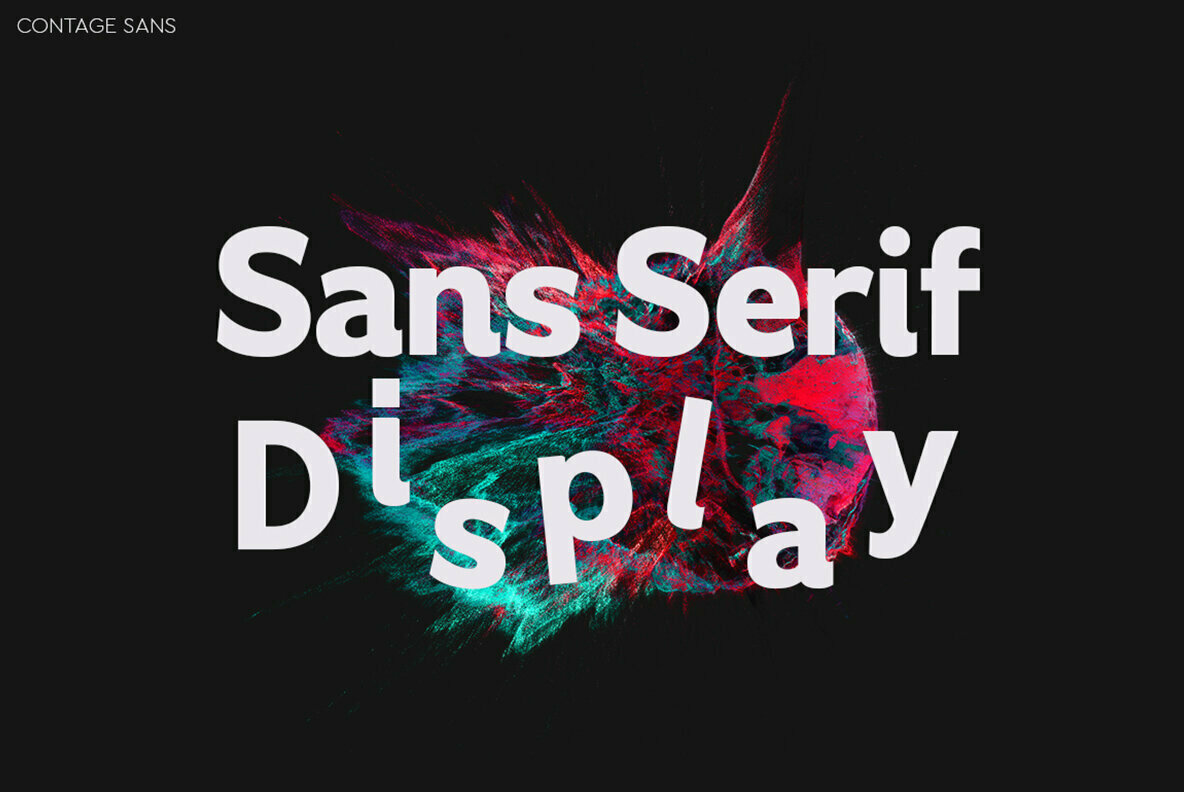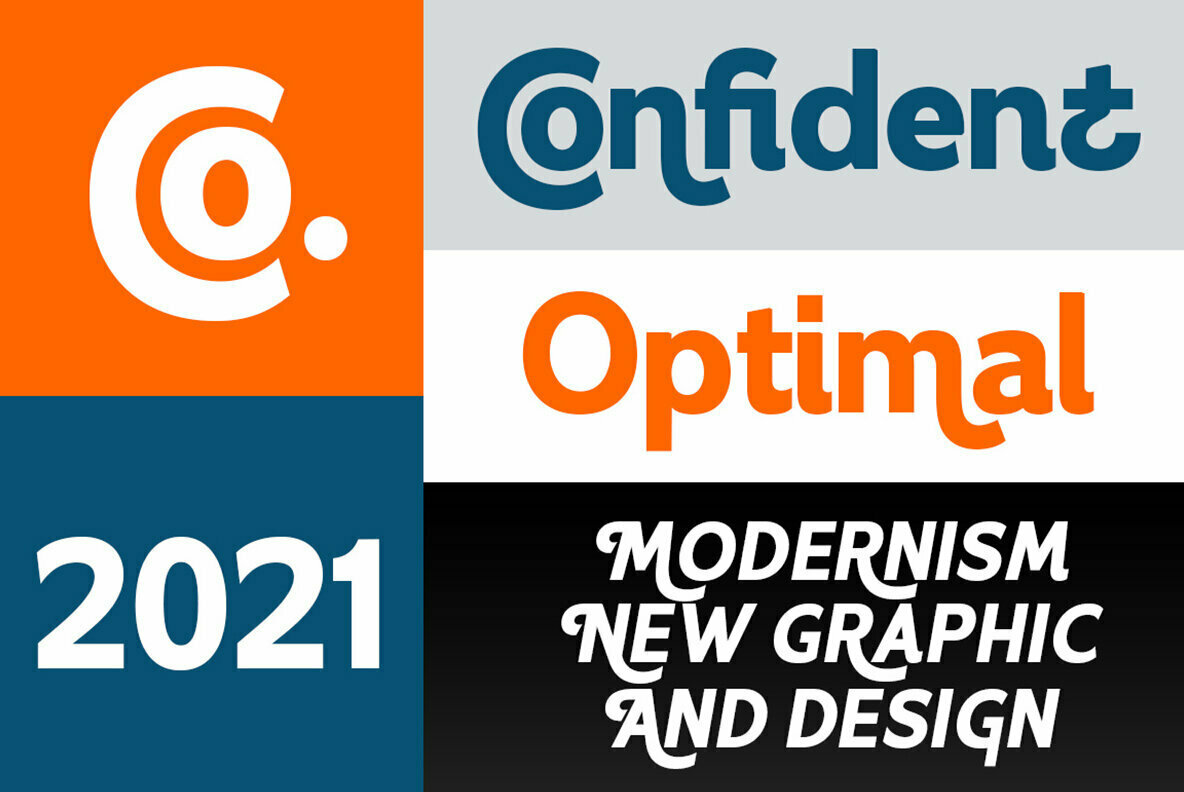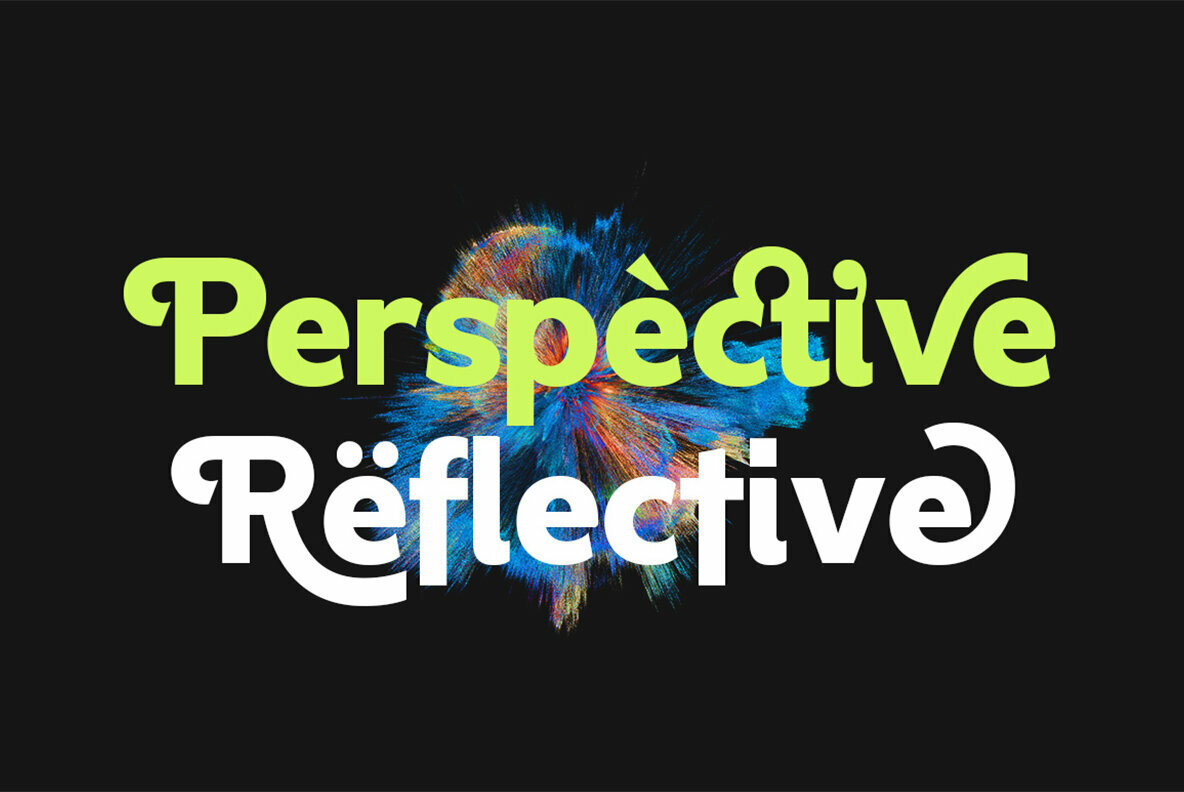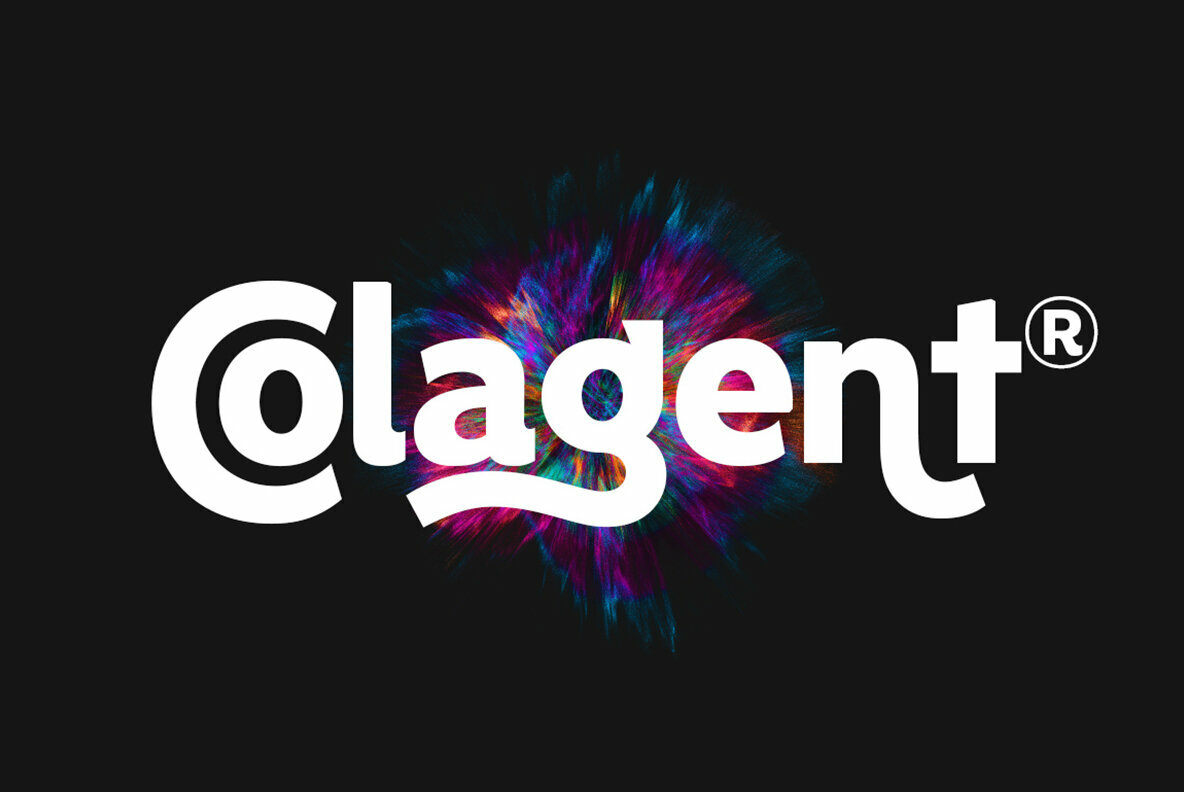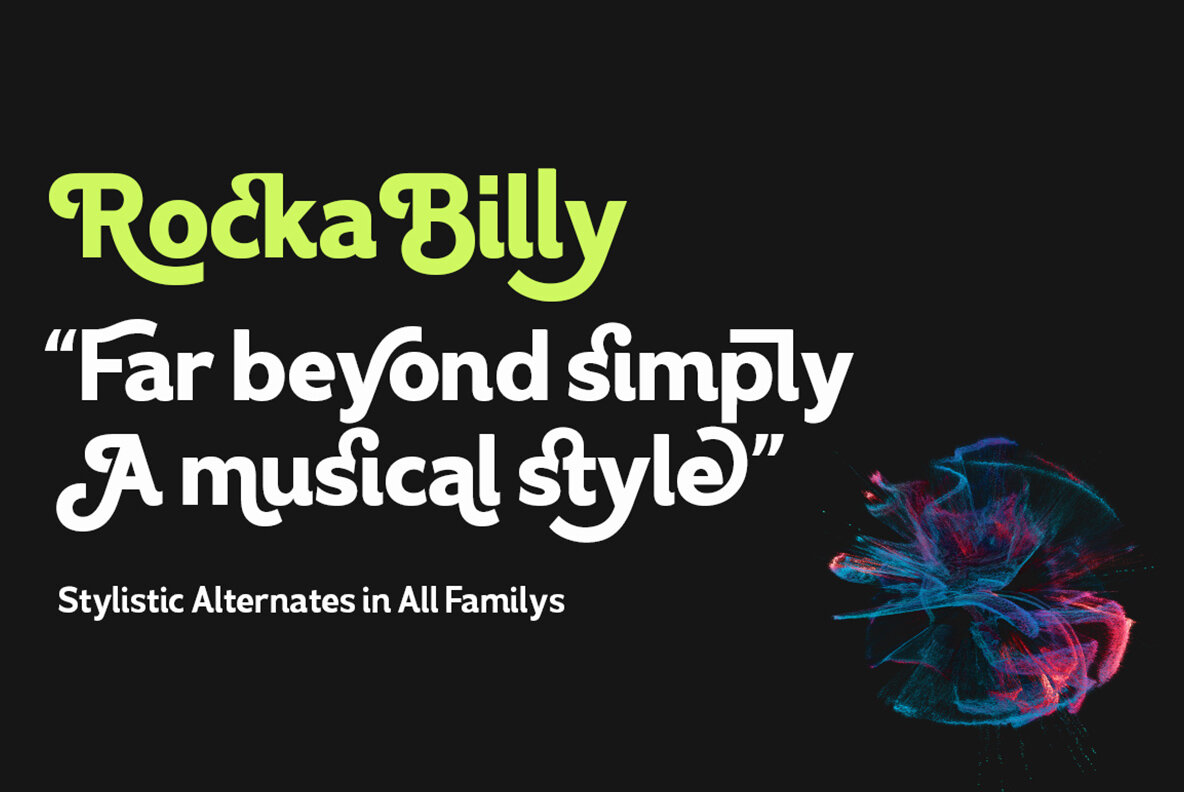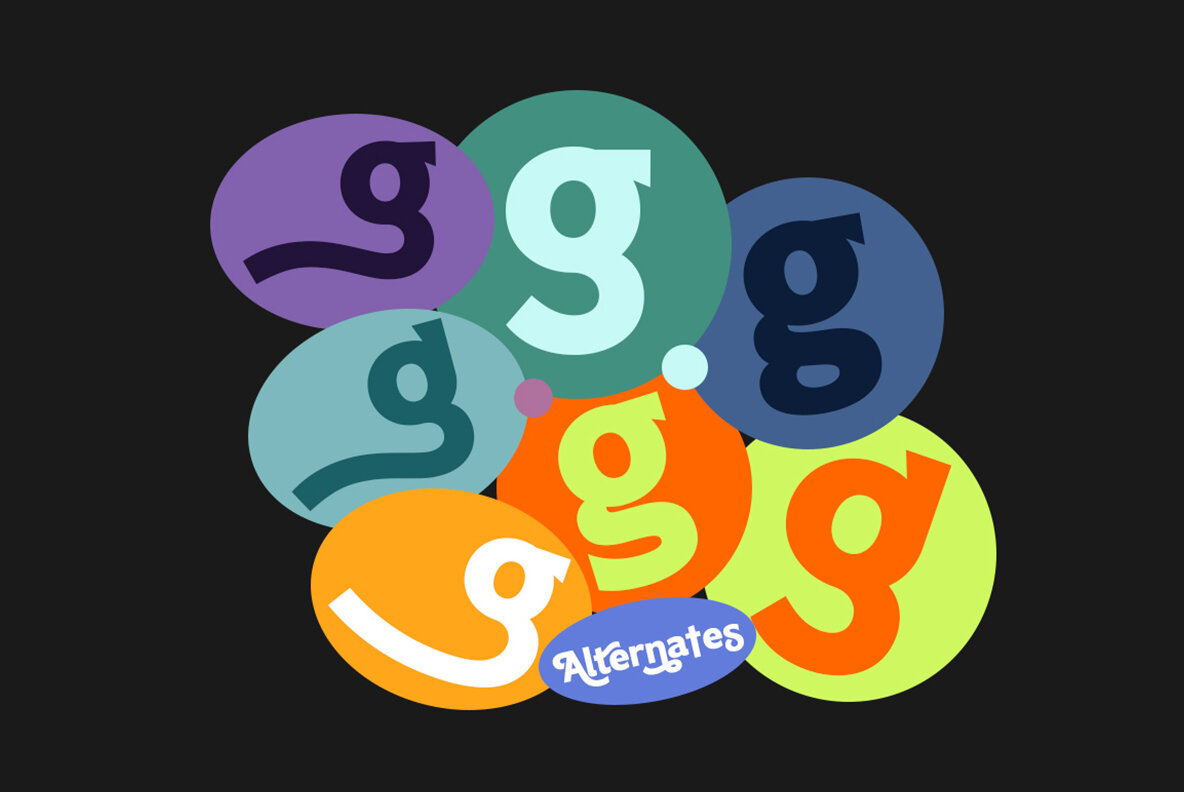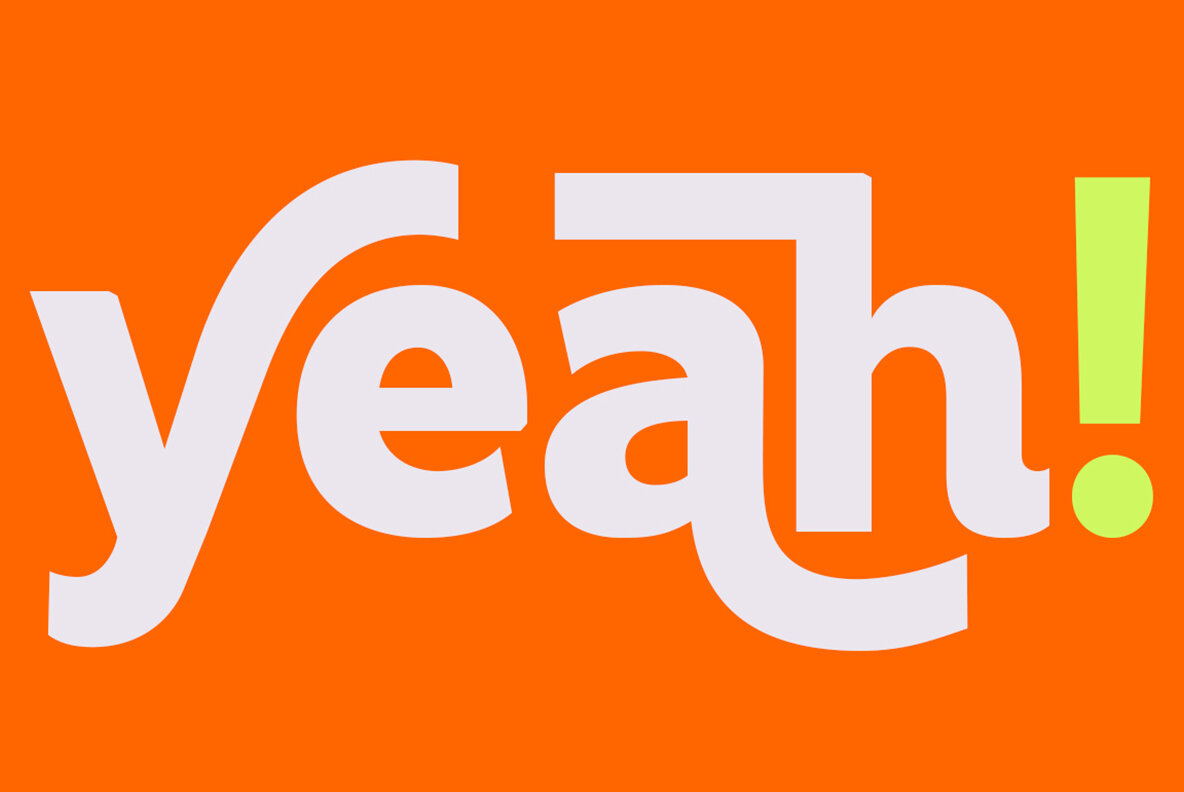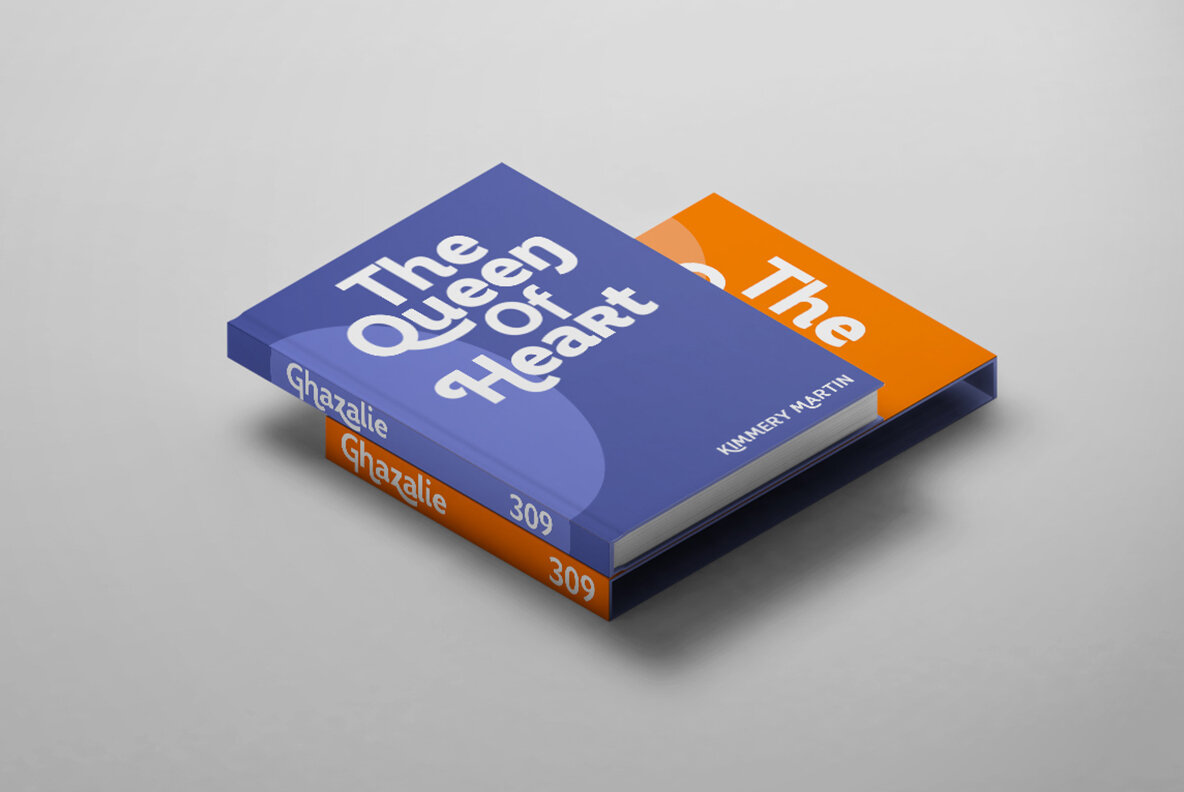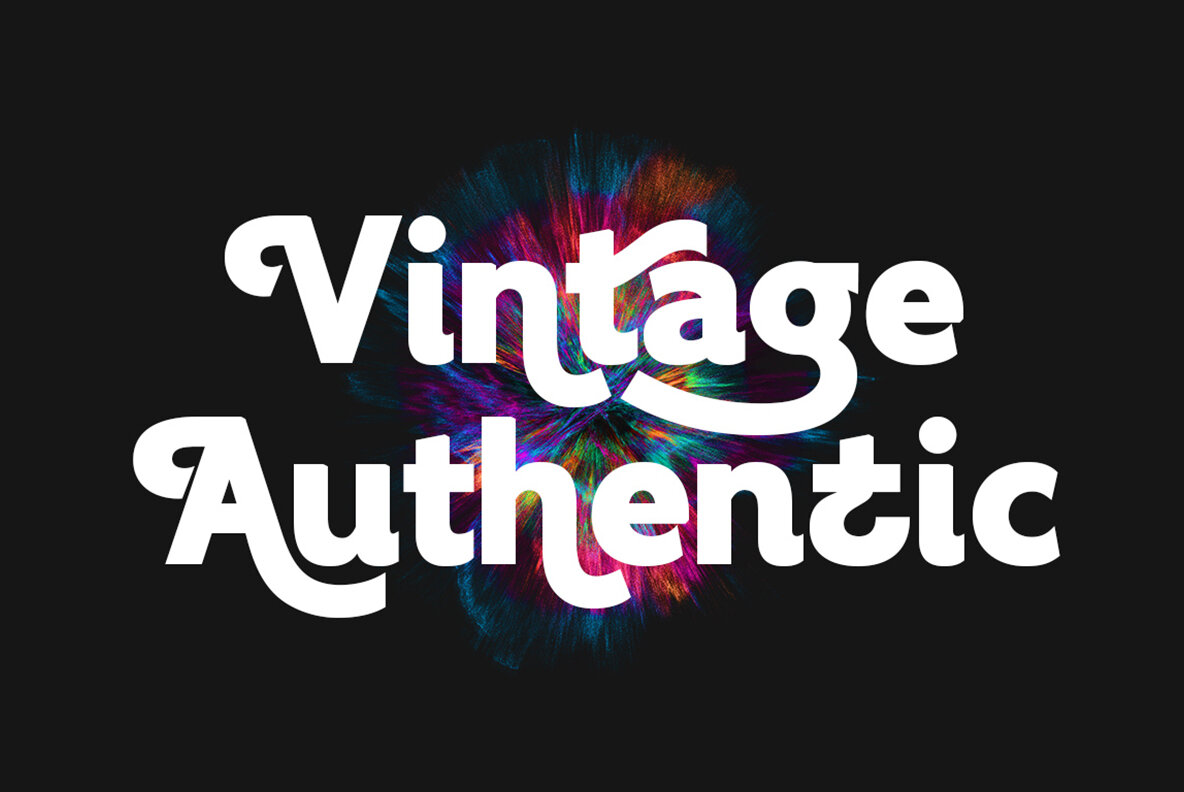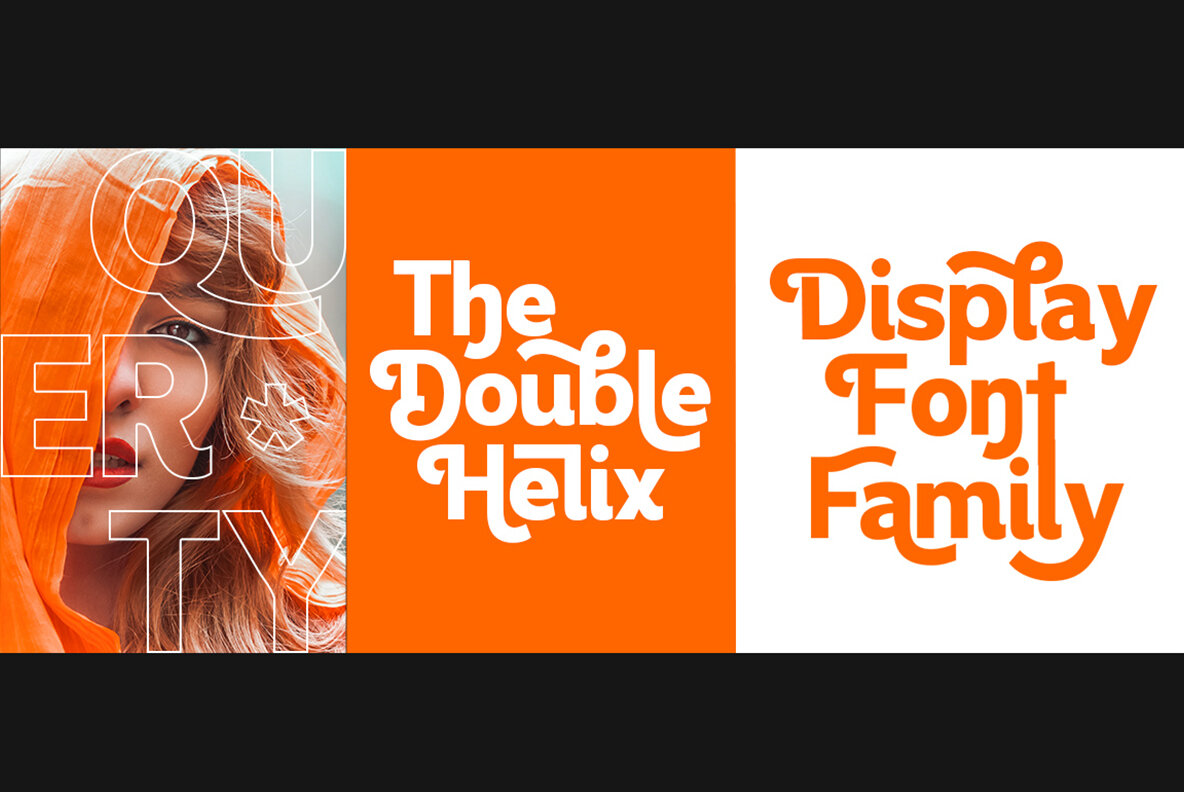
Contage Font
Contage by Great Studio embodies modern versatility and minimalism in a Display Sans Serif family, making it ideal for high-impact applications. Its clean geometric design ensures optimal readability in various contexts, from fashion editorials to corporate brochures. Contage seamlessly adapts to diverse branding needs with a contemporary flair.Contage: Minimalist Display Sans Serif